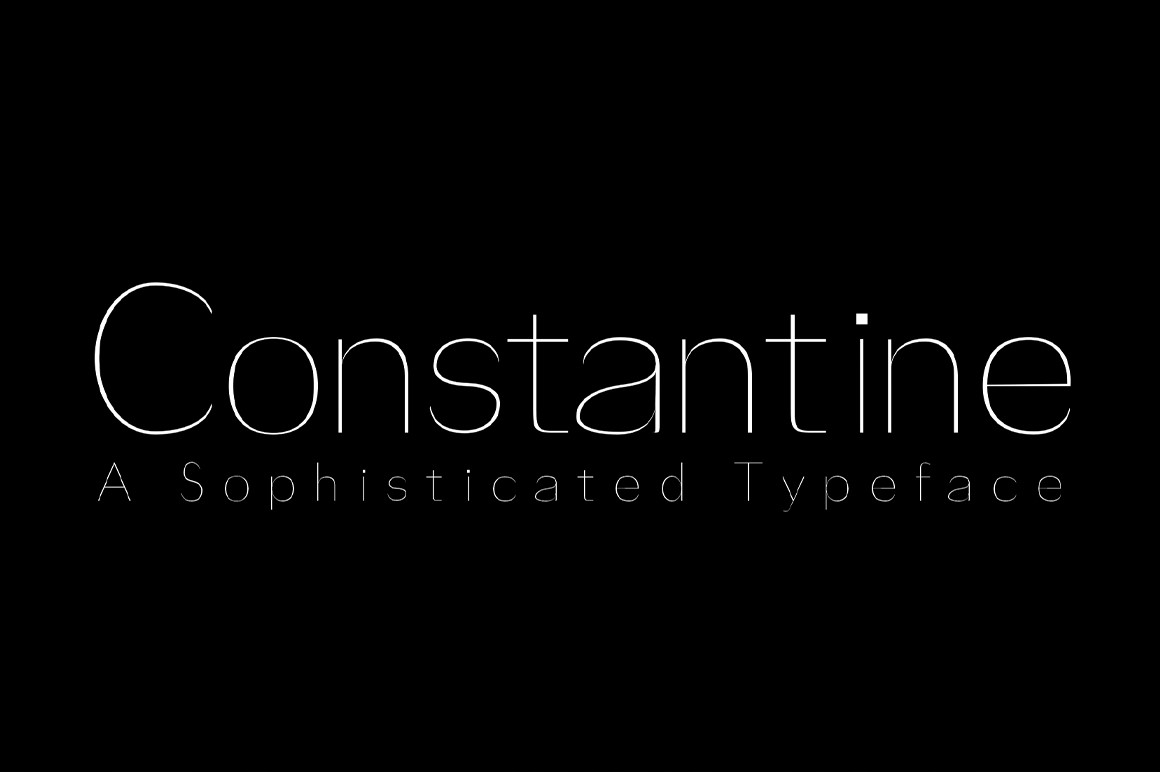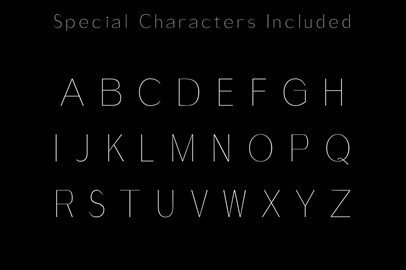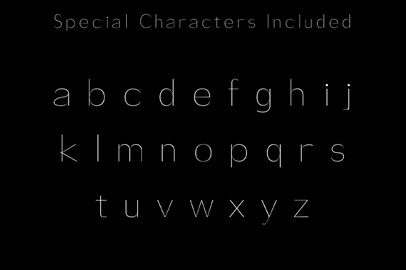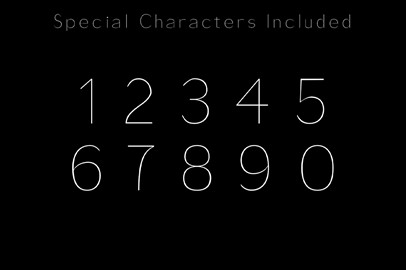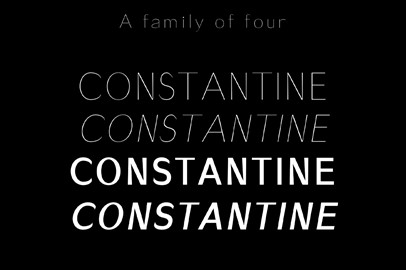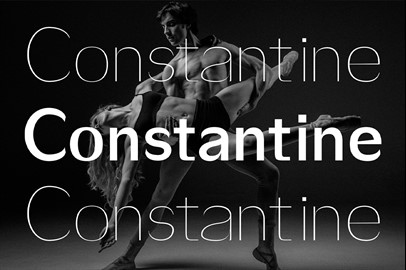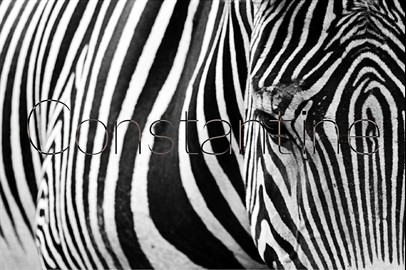
Constantine Typeface: A Modern Sans Serif Font
Constantine is a modern and sophisticated typeface with a style that makes it perfect for use in your design projects.